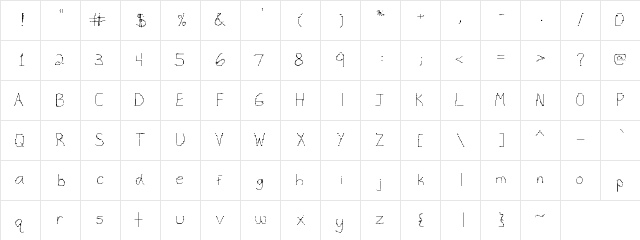
LeftD Regular
Design Context for LeftD Typeface
LeftD is a composed and adaptable typeface that performs quietly and consistently across a wide range of design contexts.